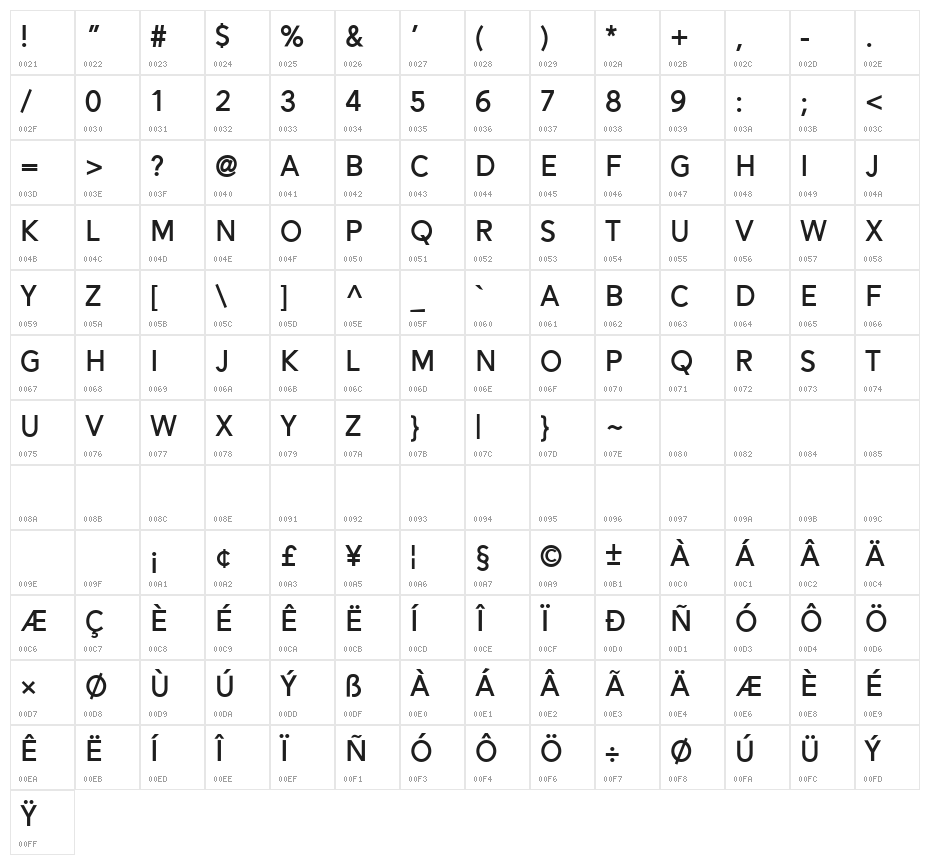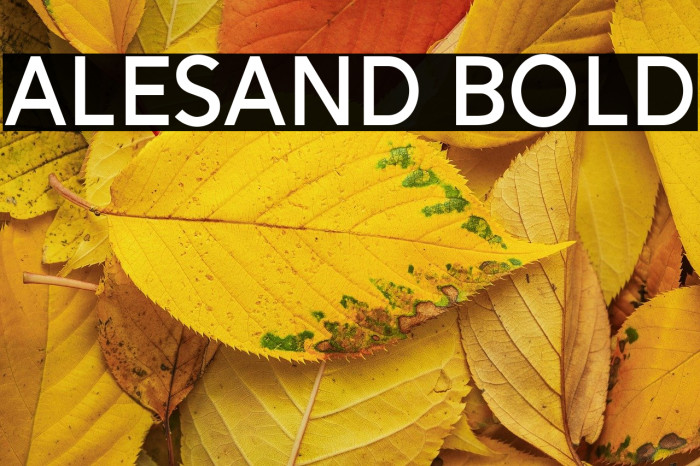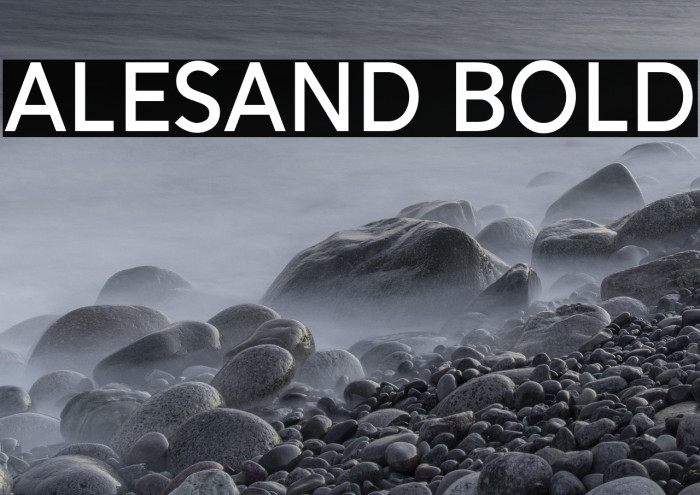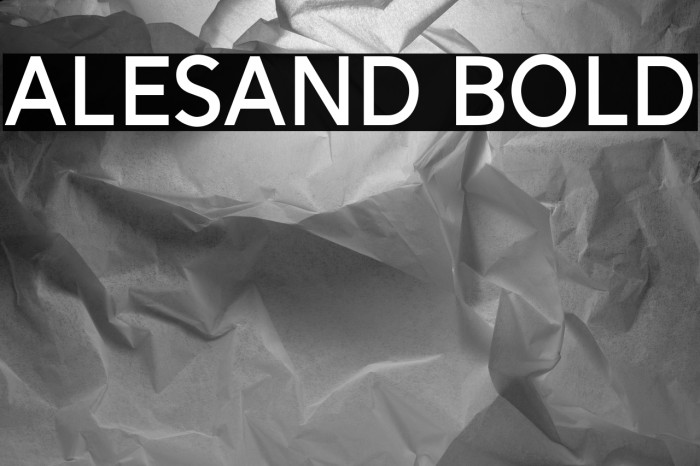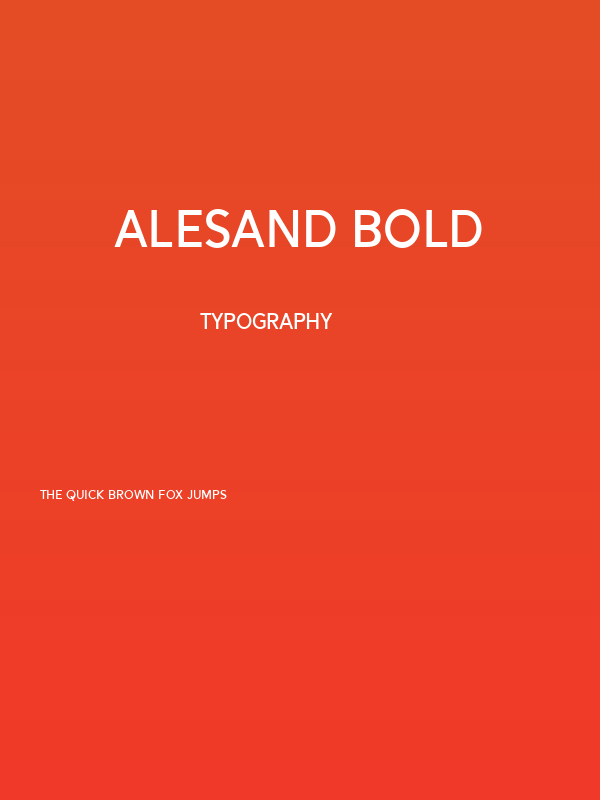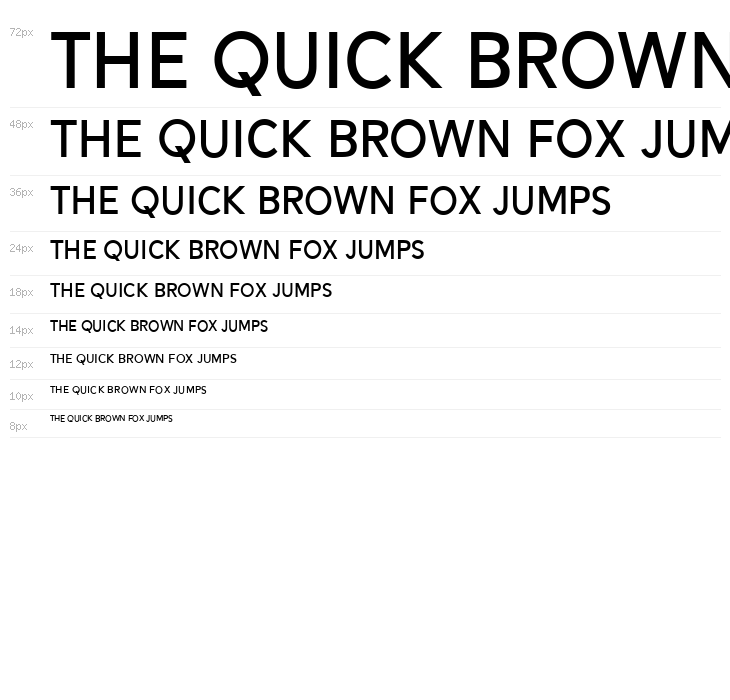
Alesand Bold Font
Alesand Bold Description
This font features a clean and modern sans-serif style with bold, uniform strokes that provide a strong visual impact. The characters are well-proportioned, offering a balanced and harmonious appearance. The uppercase and lowercase letters maintain a consistent height and width, contributing to its readability. The numerals are clear and distinct, making them easily distinguishable. Special characters are designed with the same boldness, ensuring they stand out effectively. This font is versatile, suitable for various design needs, from digital to print media.
| Use Case | Headlines, Logos, Advertising |
| Proposed Projects | Ideal for branding, advertising, headlines, and digital content where a modern and bold statement is needed. |